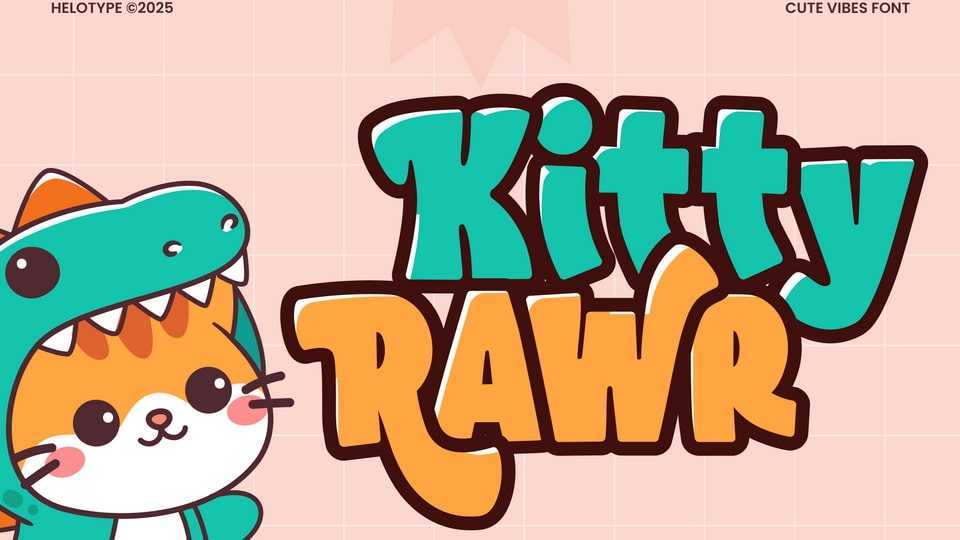
Download Kitty Rawr font, the impossibly cute display font that combines groovy bubble letters with a playful cat-dino theme. This font is bursting with personality, featuring rounded, bold characters that are friendly, energetic, and so much fun.